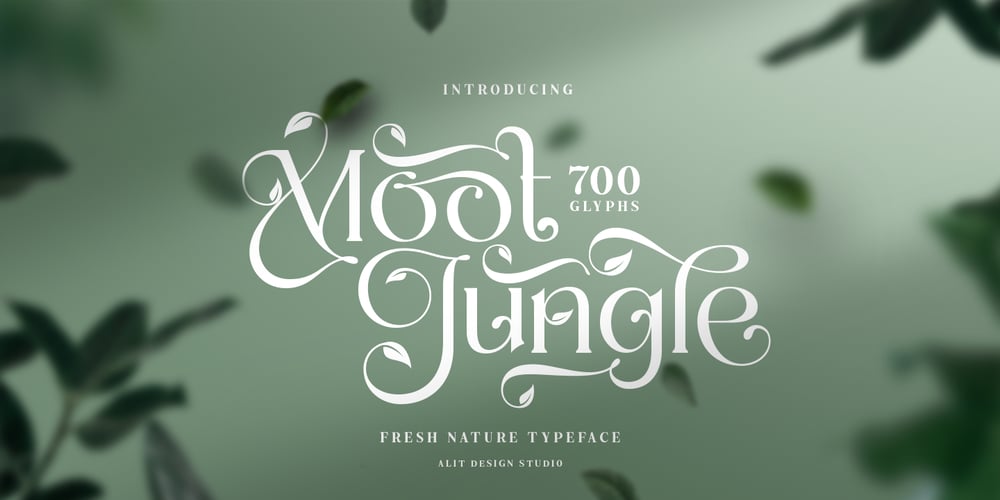
Moot jungle Font Family was designed by Alit Suarnegara and published by Alit Design. Moot jungle contains 1 styles and family package options. Presenting 🍃The Moot Jungle Nature Font🍃 by alitdesign.”The Moot Jungle” is an elegant serif font with a natural twist. Inspired by the beauty of nature, this font features a stunning swash of leaves that adds a touch of sophistication to any design. The serifs are delicate and refined, making it perfect for elegant, upscale designs. Whether you’re creating a logo, invitations, or other design projects, “The Moot Jungle” is sure to make a lasting impression.In addition, “The Moot Jungle” has a versatile design, making it suitable for various uses such as headers, titles, body text, and more. The font supports multiple languages and includes a full set of uppercase and lowercase letters, numbers, and punctuation marks. It also comes with stylistic alternatives and ligatures, adding to its uniqueness and allowing for even more creative freedom. Embrace the beauty of nature and elevate your design with “The Moot Jungle” font.The Moot Jungle font has alternatives that you can combine between swashes and symbols that have the theme of elegant nature. Besides that this font is very easy to use both in design and non-design programs because everything changes and glyphs are supported by Unicode (PUA).The Moot Jungle Font has a total of 700 glyphs including symbol, multilingual.Language Support : Latin, Basic, Western European, Central European, South European,Vietnamese. In order to use the beautiful swashes, you need a program that supports OpenType features such as Adobe Illustrator CS, Adobe Photoshop CC, Adobe Indesign and Corel Draw. but if your software doesn’t have Glyphs panel, you can install additional swashes font files.